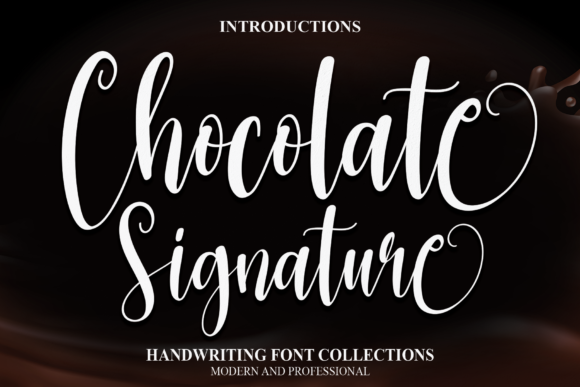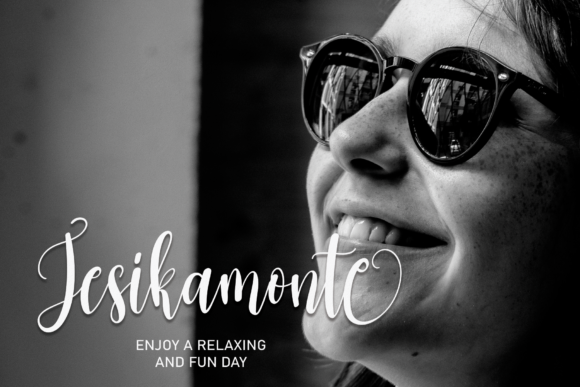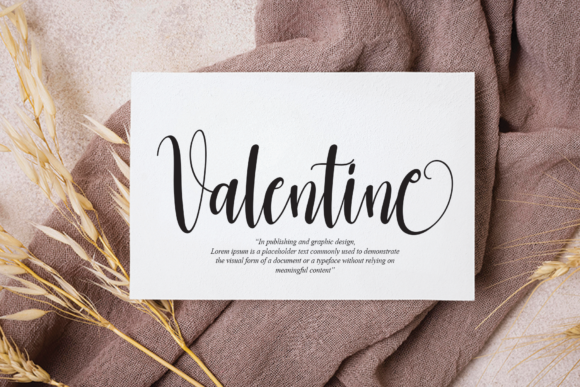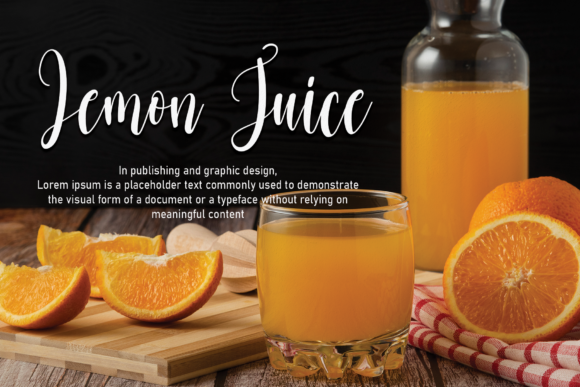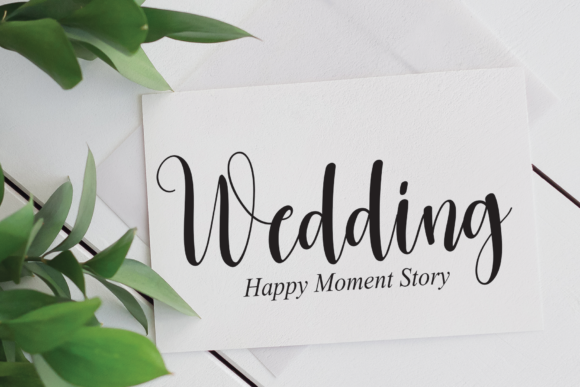
Chocolate Signature Font
About Chocolate Signature Font
Chocolate signature is a superb handwritten font that gives off exquisite and relaxed vibes. Use it for wall displays, wedding invitations, social media post logos, advertisements, product packaging, product designs, labels, photography, watermarks, invitations, stationery, and more.